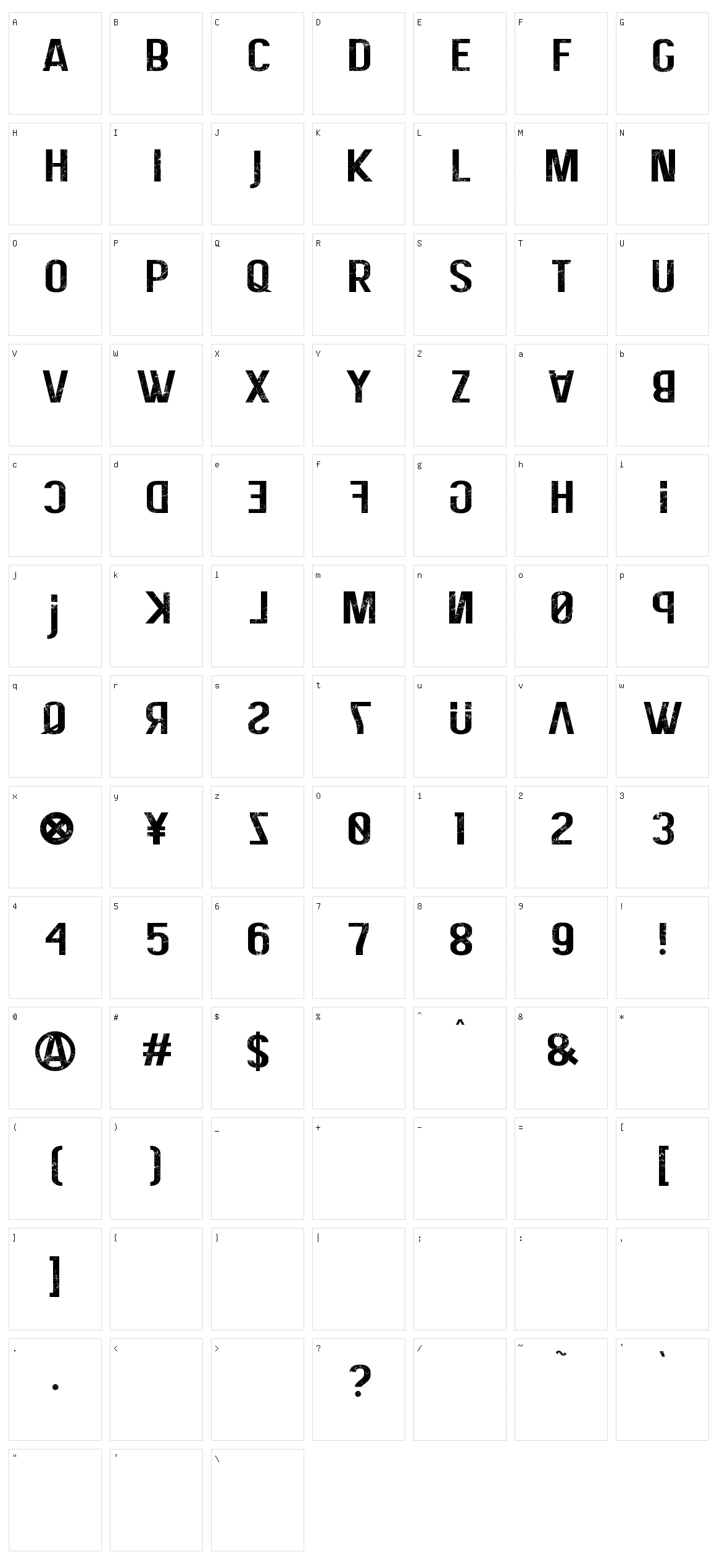
The free font Elite Hacker Corroded is carefully designed by Michael Muranaka, showcasing a thoughtful balance of creativity and usability and falls under the Eroded font style. When you download the ZIP file, it contains only 592.7 KB of font files, making it lightweight and quick to download. Please review the license details below to understand permitted usage and distribution rights. If license information is not available, we recommend using this font for personal projects only or contacting the author directly for commercial usage permissions.